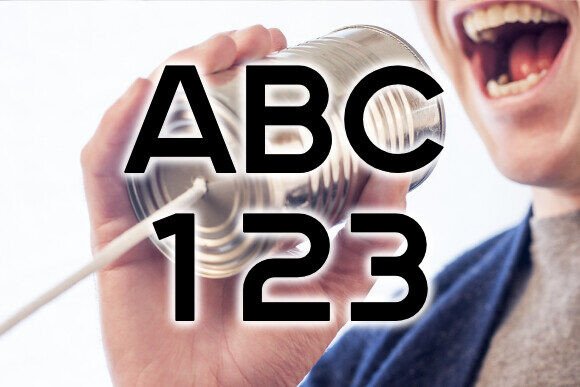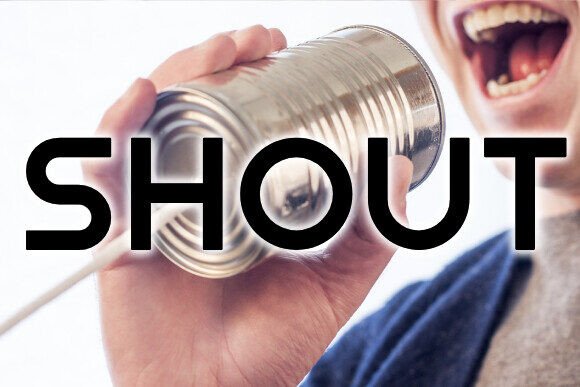
Bawler Font: The Ultimate Sans Serif Display Font for Impactful Designs
In the world of typography, a font can make or break a design. When it comes to creating bold and attention-grabbing headlines, posters, and digital designs, a font with a strong presence is essential. This is where Bawler Font comes in – a modern sans serif display font designed to command attention and convey confidence. In this article, we’ll dive into the features and benefits of Bawler Font, and explore why it’s the perfect choice for designers and crafters looking to make a statement.
Clean Lines, Sharp Edges, and a Modern Geometric Structure
Bawler Font boasts a clean and modern design, characterized by sharp edges and a geometric structure. Its sans serif design ensures a sleek and contemporary look, making it perfect for designs that require a bold and edgy feel. The font’s lines are carefully crafted to provide a clear and precise appearance, which is essential for creating impactful headlines and titles.
Perfect for Impactful Headlines and Branding
Bawler Font is specifically designed for use in high-impact designs, such as headlines, posters, and digital displays. Its bold and commanding presence ensures that your message is conveyed with clarity and confidence. Whether you’re designing a logo, creating a poster, or crafting a digital advertisement, Bawler Font is the perfect choice for making a statement.
Key Features of Bawler Font
- Bold and commanding presence: Bawler Font is designed to grab attention and convey confidence.
- Clean lines and sharp edges: The font’s modern geometric structure ensures a clear and precise appearance.
- Modern sans serif design: Bawler Font boasts a sleek and contemporary look, perfect for designs that require a bold and edgy feel.
- Perfect for high-impact designs: Bawler Font is ideal for headlines, posters, digital displays, and branding.
Why Choose Bawler Font?
With so many fonts available, why choose Bawler Font? Here are just a few reasons why designers and crafters are falling in love with this bold and commanding font:
- Versatility: Bawler Font can be used in a wide range of design projects, from posters and digital displays to branding and logos.
- Legibility: The font’s clean lines and sharp edges ensure excellent legibility, even at large sizes.
- Uniqueness: Bawler Font’s modern geometric structure sets it apart from other sans serif fonts, making it a great choice for designers looking to create a distinctive look.
Tips for Using Bawler Font
To get the most out of Bawler Font, here are a few tips to keep in mind:
- Use it boldly: Bawler Font is designed to make a statement, so don’t be afraid to use it in bold and eye-catching ways.
- Experiment with colors: The font’s clean lines and sharp edges make it perfect for use with a wide range of colors and textures.
- Pair it with contrasting fonts: Bawler Font’s bold presence makes it perfect for pairing with contrasting fonts to create visual interest.
In conclusion, Bawler Font is a bold and commanding sans serif display font that’s perfect for designers and crafters looking to make a statement. With its clean lines, sharp edges, and modern geometric structure, it’s ideal for high-impact designs that demand clarity and confidence. Whether you’re creating headlines, posters, digital displays, or branding, Bawler Font is the perfect choice for adding a touch of boldness and sophistication to your designs.